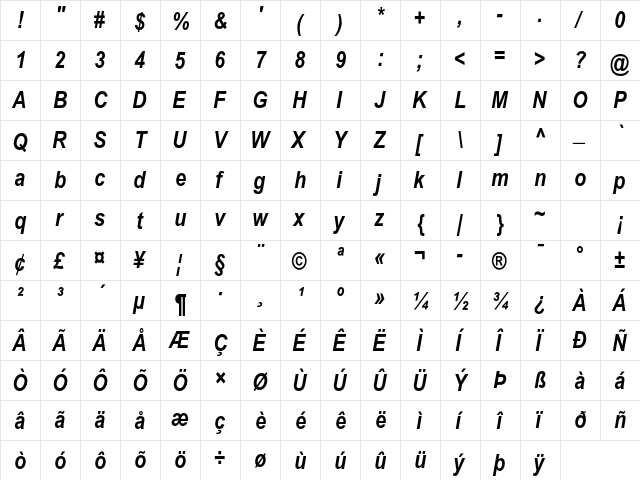
Arial Narrow MT Std Bold Italic Font Preview
Design Context for Arial Narrow MT Std Typeface
Arial Narrow MT Std offers clean, dependable letterforms without strong stylistic allegiance, making it a practical choice for designers who need flexibility. The slanted form adds forward momentum and visual energy. The heavy weight commands attention and anchors typographic hierarchies. Its narrow stance lets it pack a punch even in space-constrained designs.
Pro Tip: Try Arial Narrow MT Std for annotation and caption copy alongside an upright companion — the contrast in angle creates a dynamic but ordered typographic system.